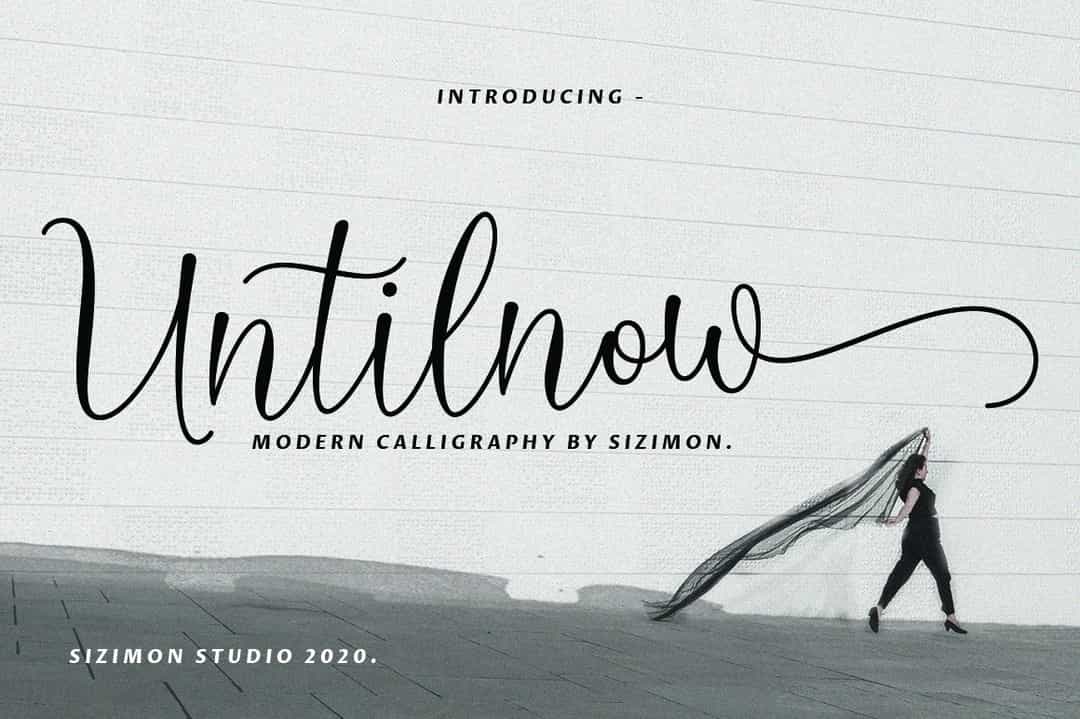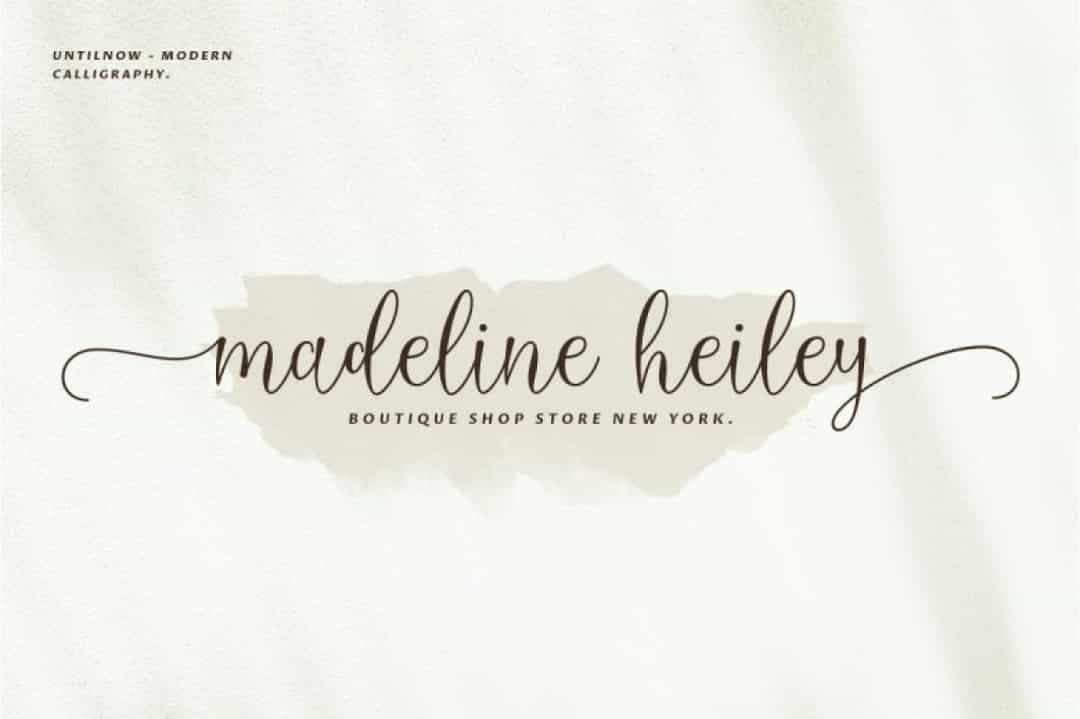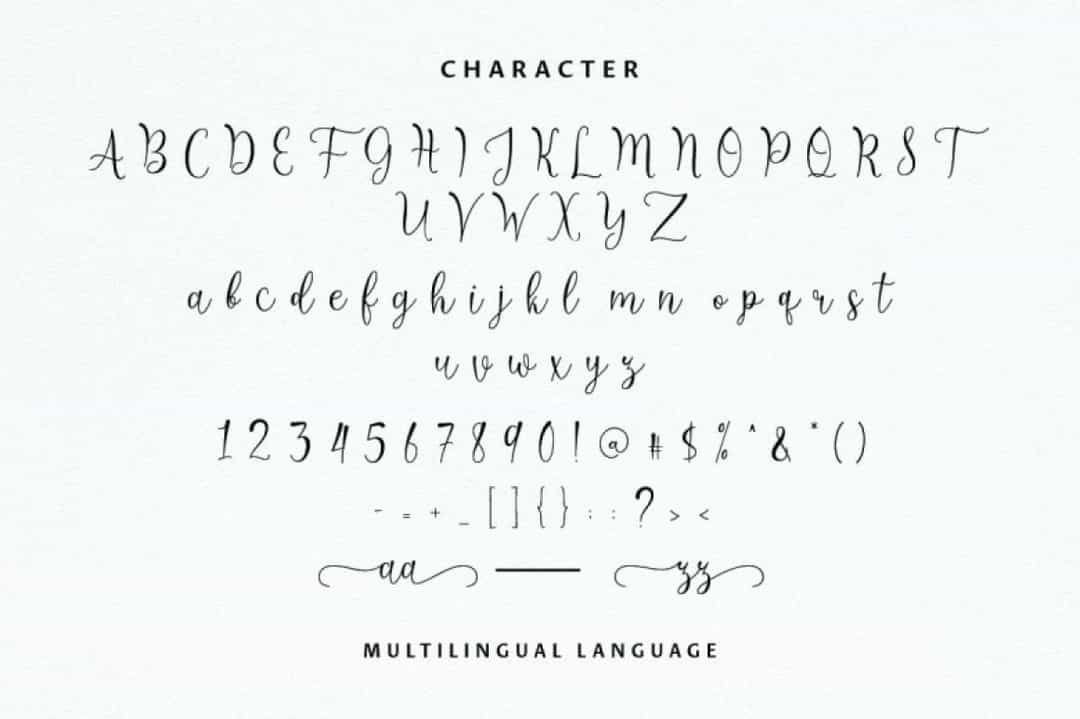
Untilnow Script Connecting script was designed to reflect elegance and sophistication. Sleek and feminine, it makes an ideal choice for fashion brands and trend blogs as well as companies wanting to project an elegant image.